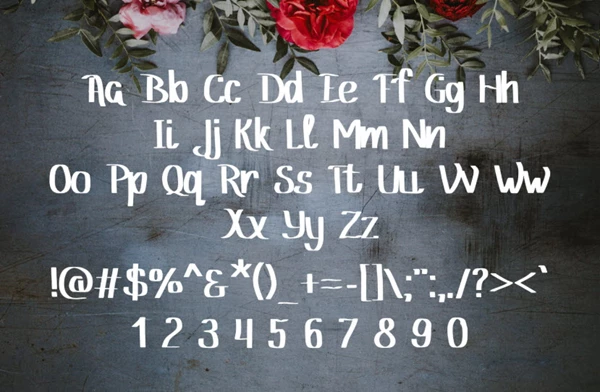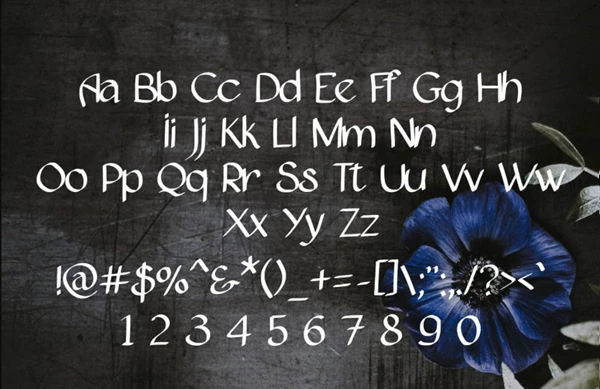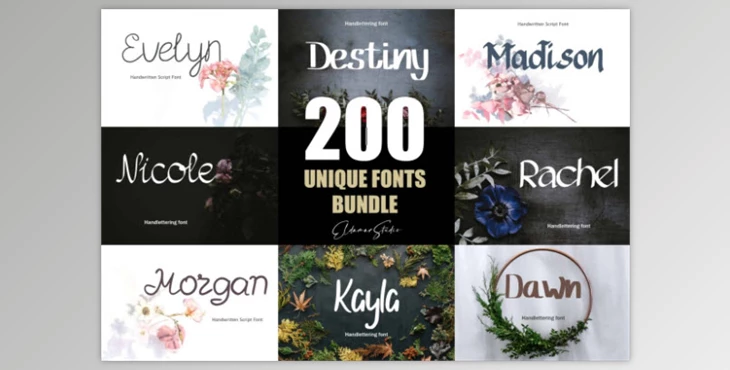
Eldamar Studio - 200 Unique Fonts Bundle:
This is a unique and varied collection for everyone. This font family boasts everything from modern calligraphy and monoline to dry brush and scripted handwriting styles. Natural, handcrafted feels mean this is perfect for anyone looking for the ultimate vintage and classic font for any time of year—offered in uppercase and lowercase.
Fonts are ideal for logos, showcase use, and headers—perfect for personalized weddings, wedding titles, websites, and brand. Everything meshes well with options to switch up with alternate characters.
- Mixing and matching is great